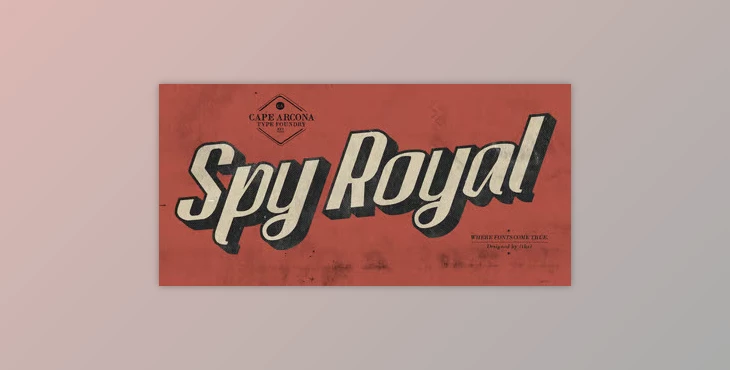
CA Spy Royal Font Family is a unique typeface that combines script and streamlined styles. It takes inspiration from a Japan Airlines advertisement from the mid-20th century and uses a small sampling of uppercase letters meant for a travel-themed promotion boasting flights to places like San Francisco, Honolulu, and Okinawa. The challenge was to take such a small sampling of letters and create the rest of an entire font family, something done in 2004 and recently updated to six styles with features like shadow-lines and 3D-shadow (CA Spy Royal).
CA Spy Royal is appealing due to its wide usability; for instance, this font works well with automotive themes, racing, old-timey feelings, and has even been used for retro restaurants and airplanes. Alternate characters, ligatures, and Western European diacritics are also offered with CA Spy Royal.